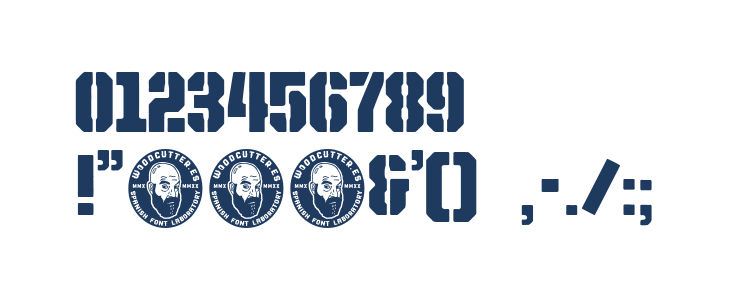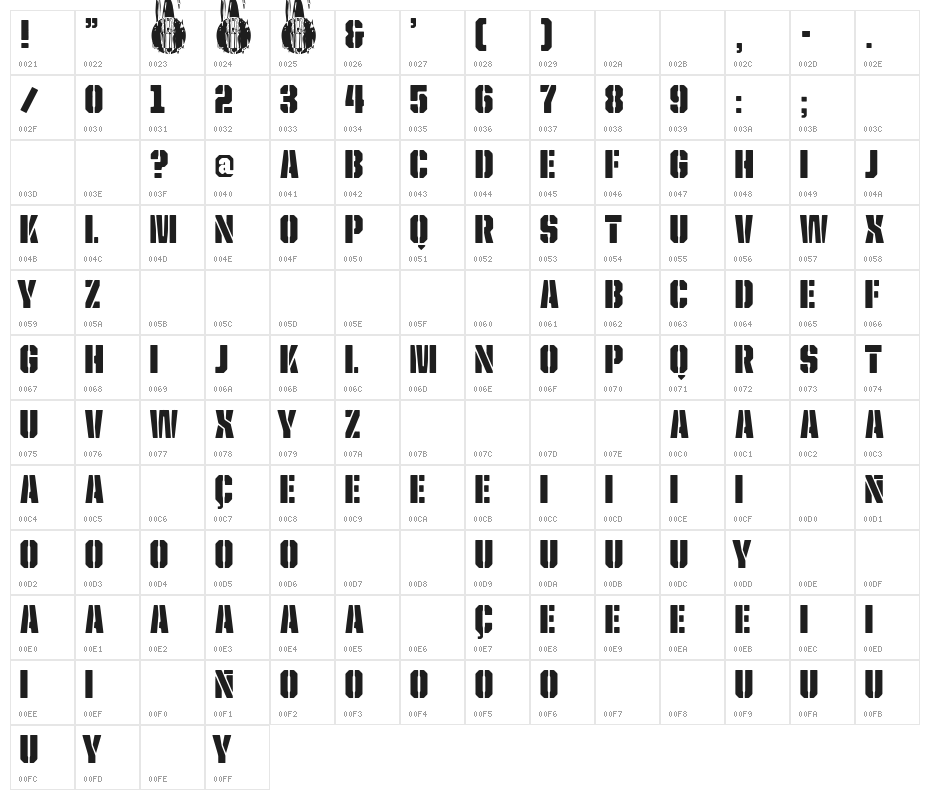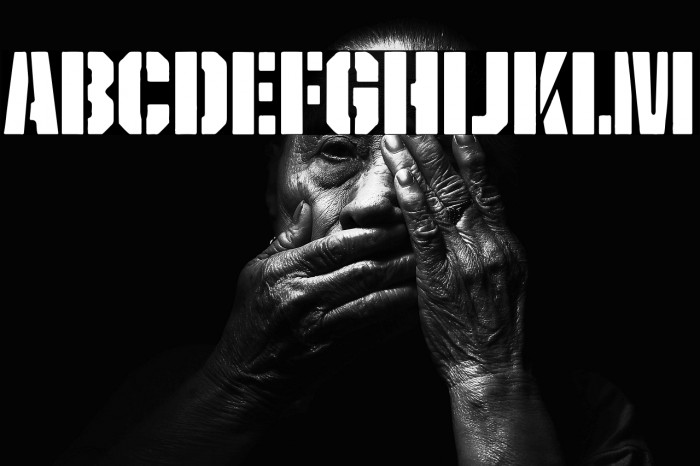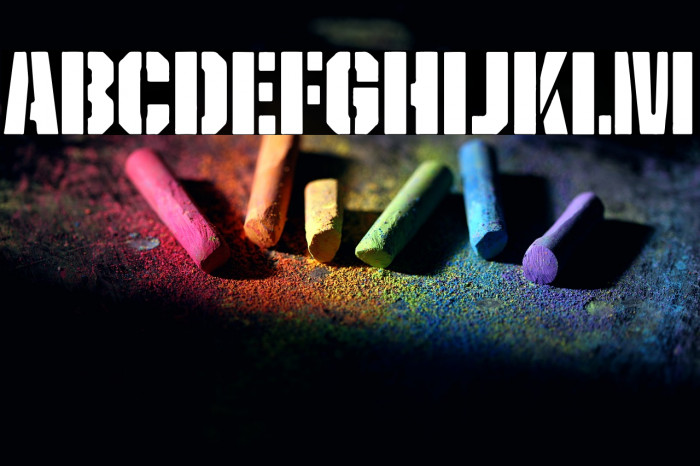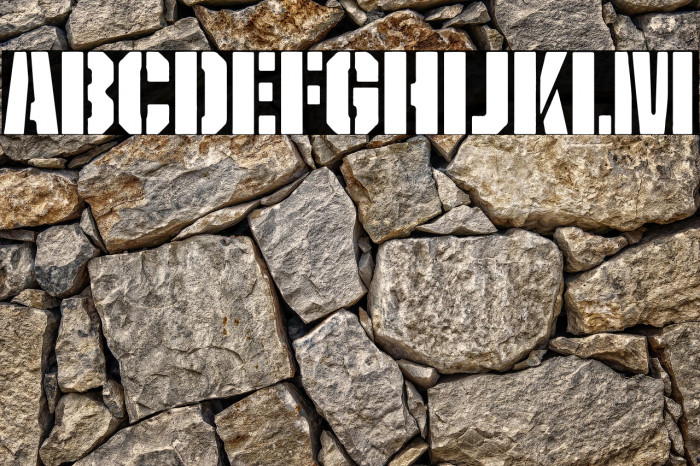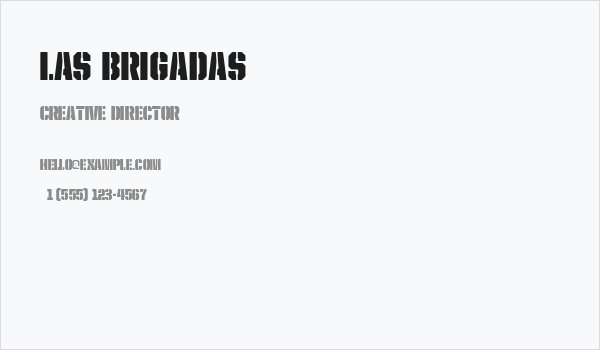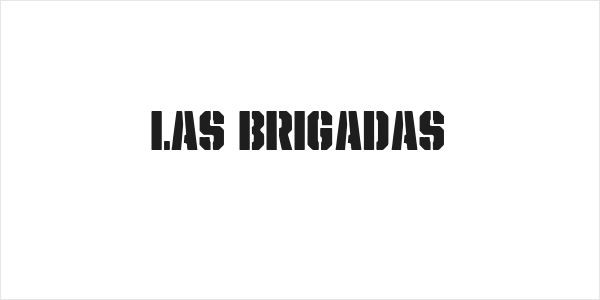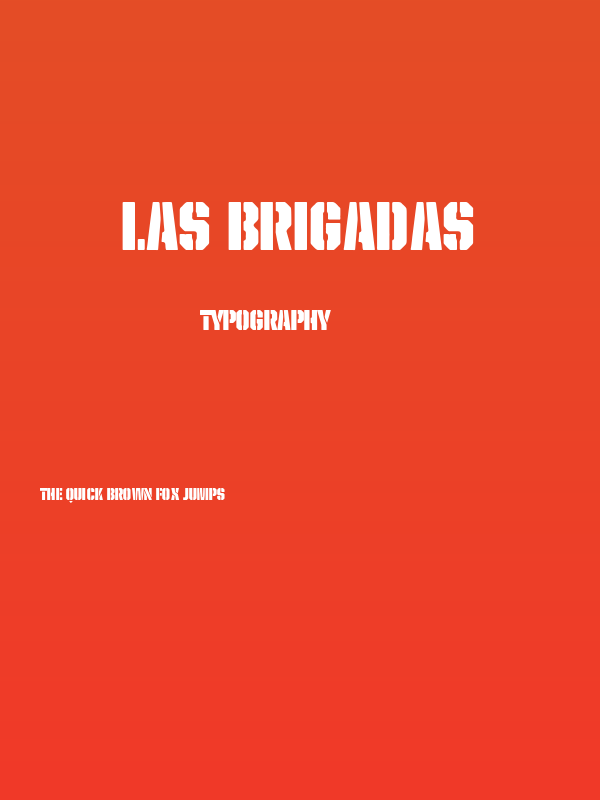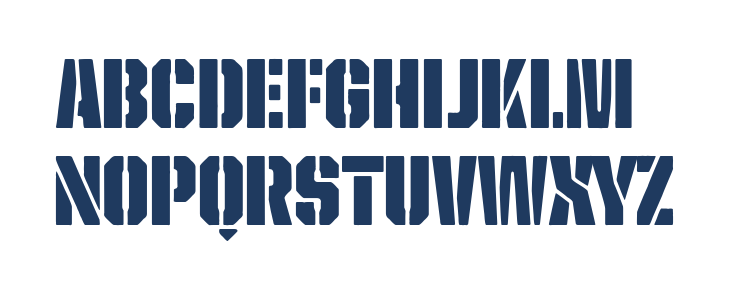
Las Brigadas Font
Las Brigadas Description
This font features a bold, stencil-like design with strong geometric shapes and sharp angles. The characters are constructed with solid black forms, interrupted by strategic cutouts that create a distinct stencil effect. This style is reminiscent of industrial and military aesthetics, offering a rugged and utilitarian feel. The uppercase letters are particularly striking, with a uniform height and width that enhances the boldness of the design. The numbers and special characters maintain this cohesive style, ensuring versatility across various applications. The font's high contrast and blocky appearance make it ideal for impactful and attention-grabbing designs.
| Overall Style | Industrial, Military, Bold |
| Proposed Projects | Ideal for posters, signage, branding, and any project requiring a strong, industrial look. |